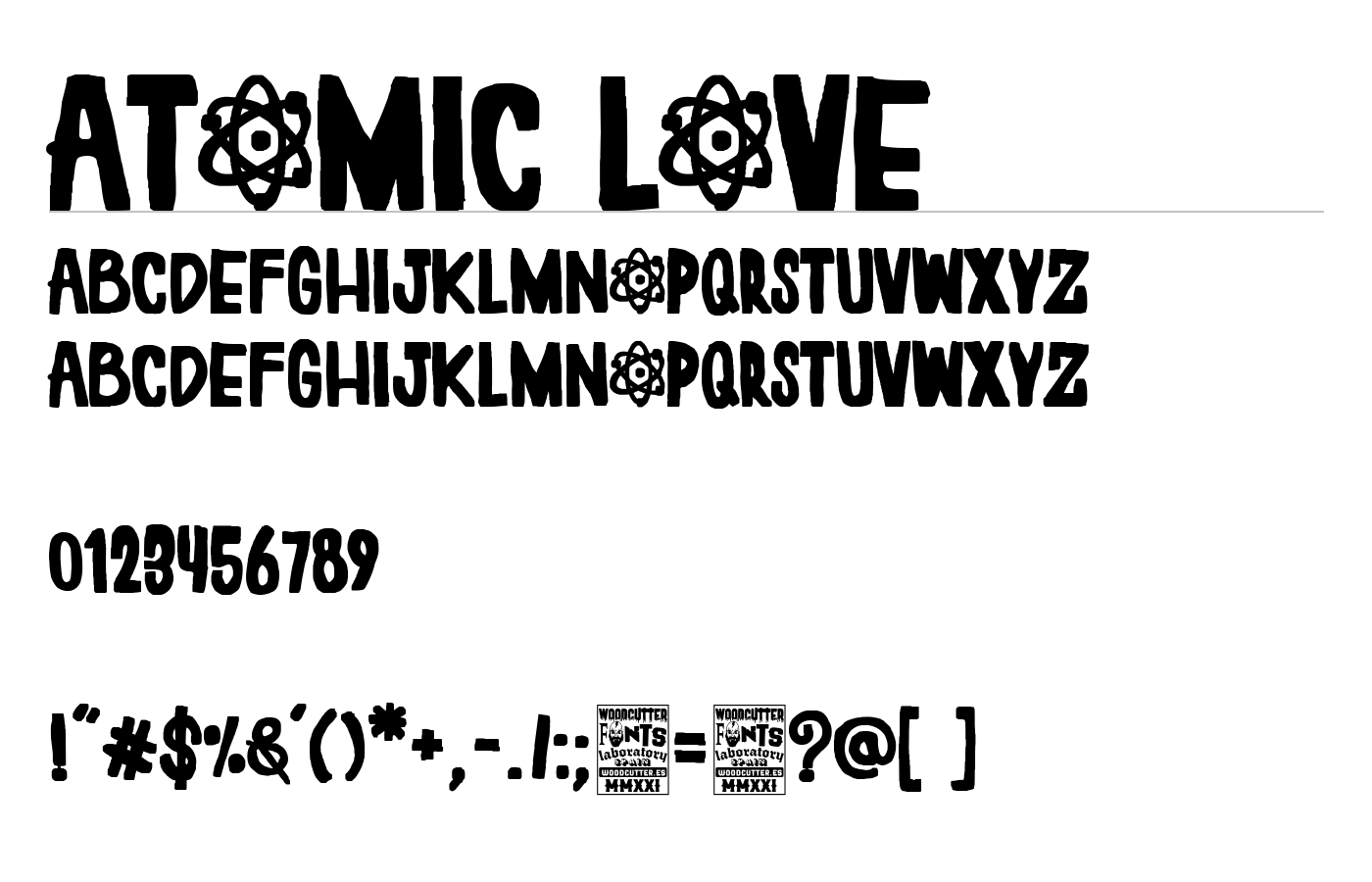
Atomic Love is a bold, playful sans serif font with a hand-drawn, slightly irregular style that gives it a quirky, energetic personality. Its tall, condensed letterforms and distinctive atom-shaped "O" characters add a fun, retro-futuristic vibe, making it perfect for eye-catching headlines, posters, or branding that wants to communicate creativity and originality. This font works well for projects that seek a lively and informal tone with a touch of vintage charm.
Atomic Love Font
About Atomic Love Font